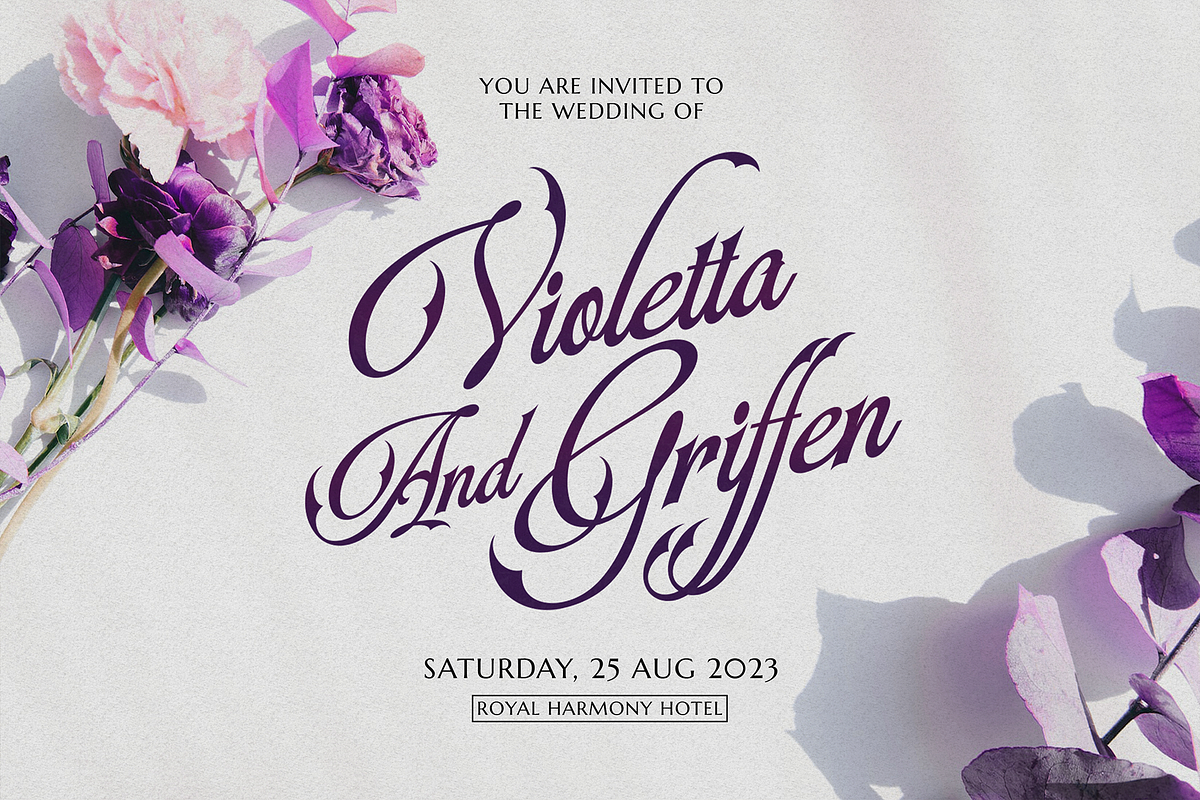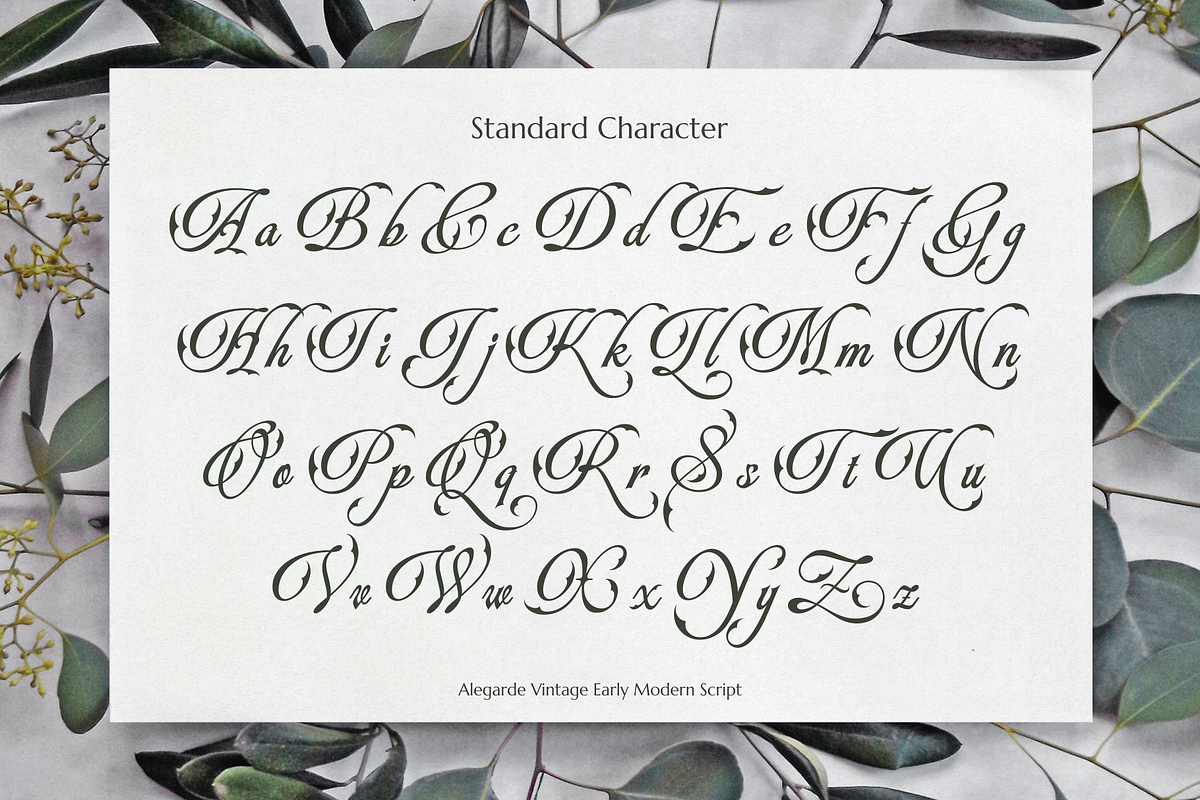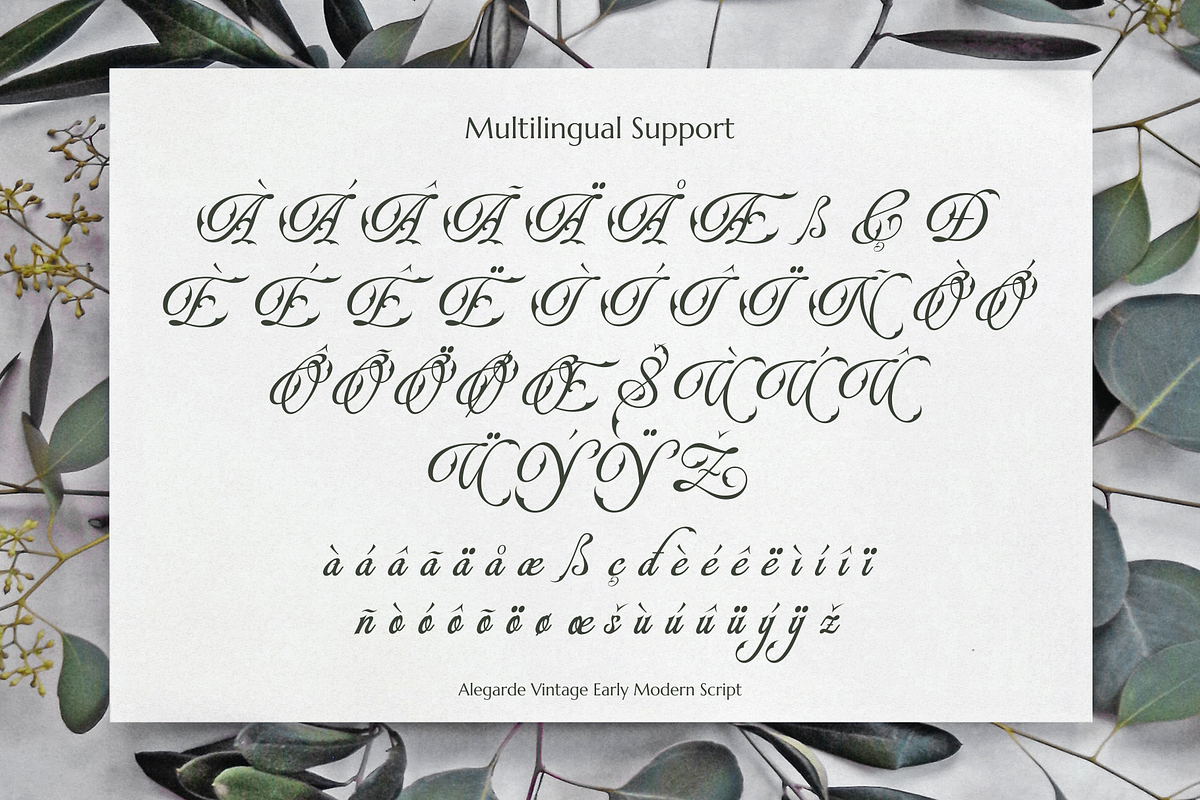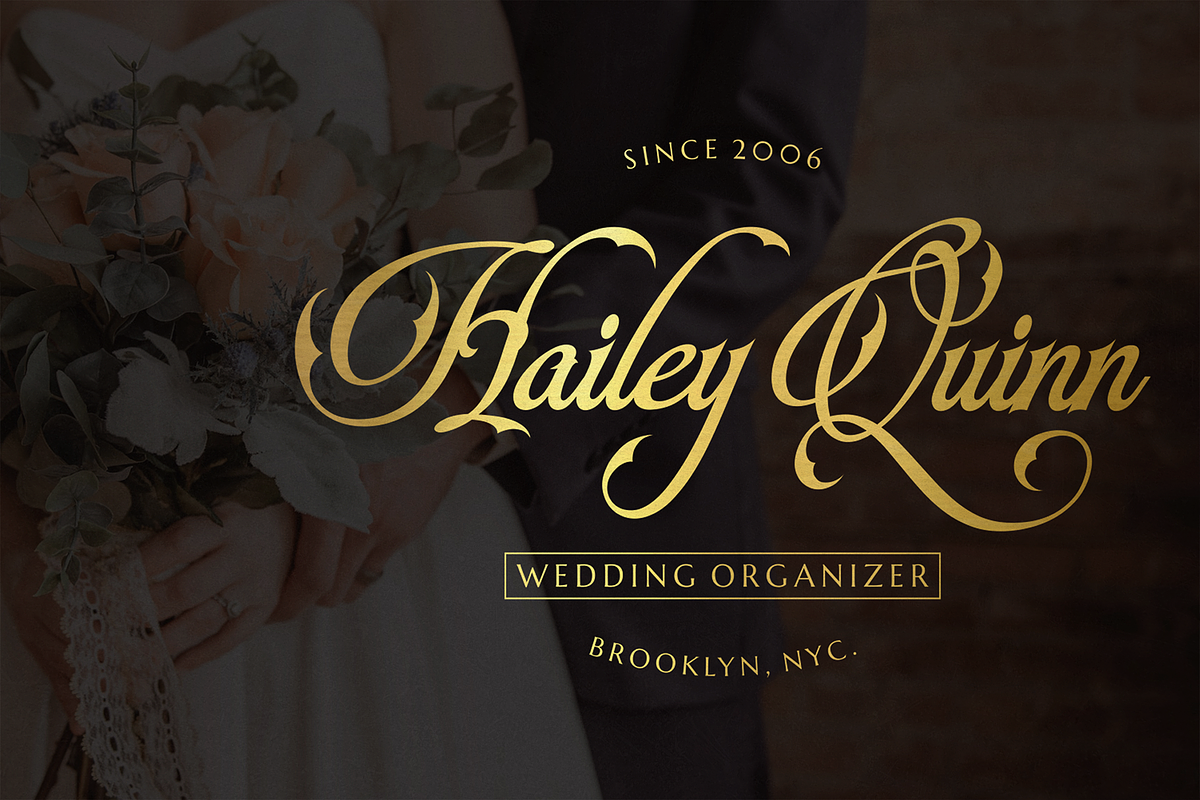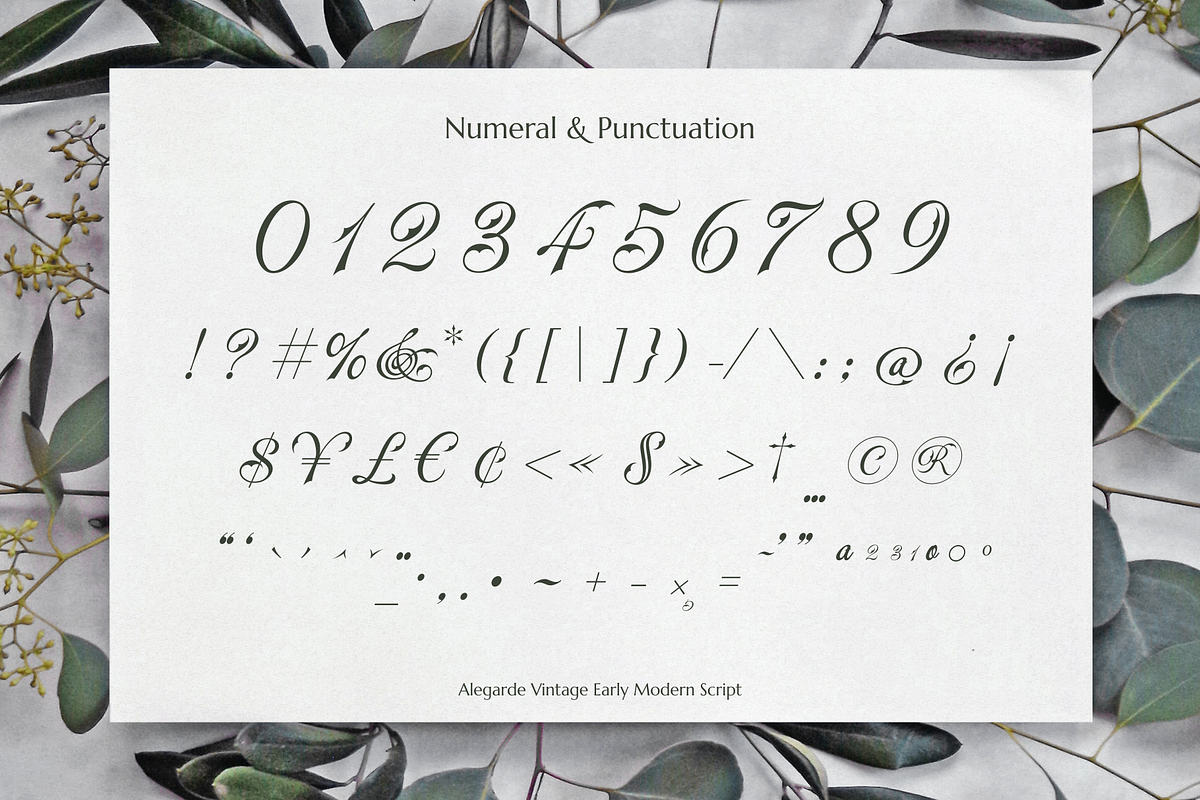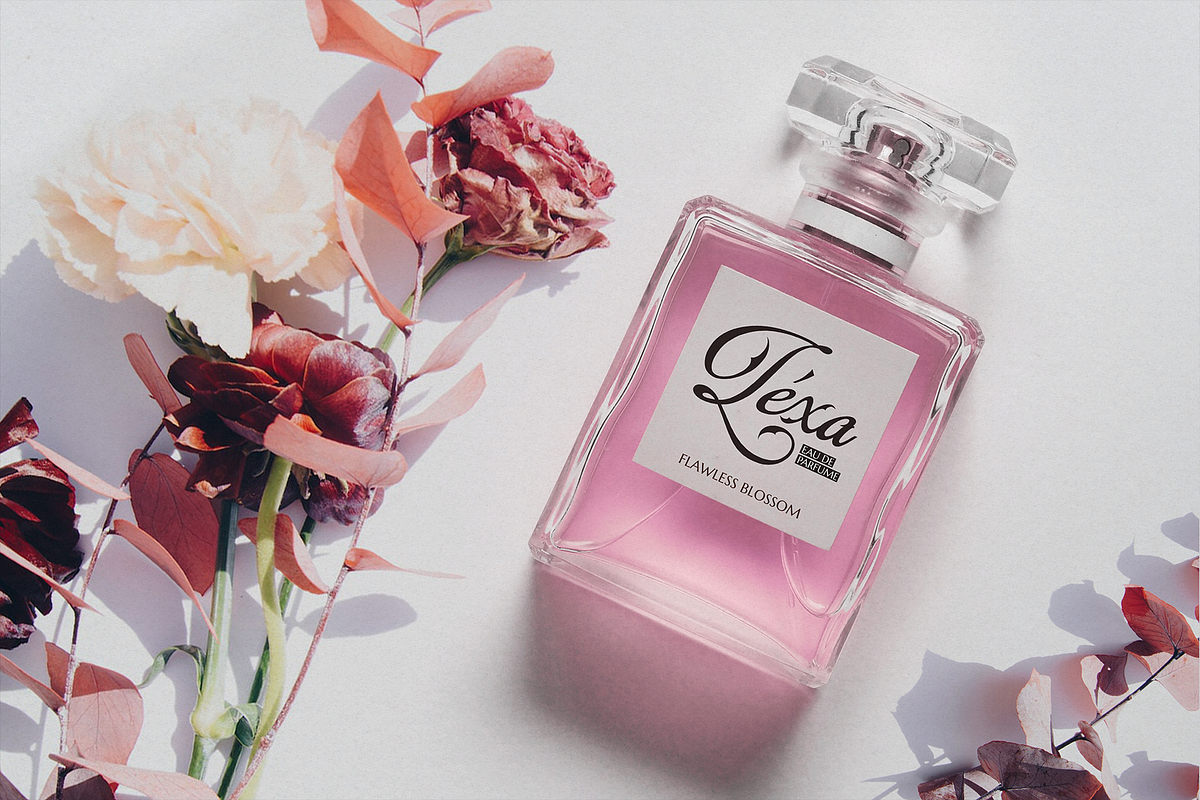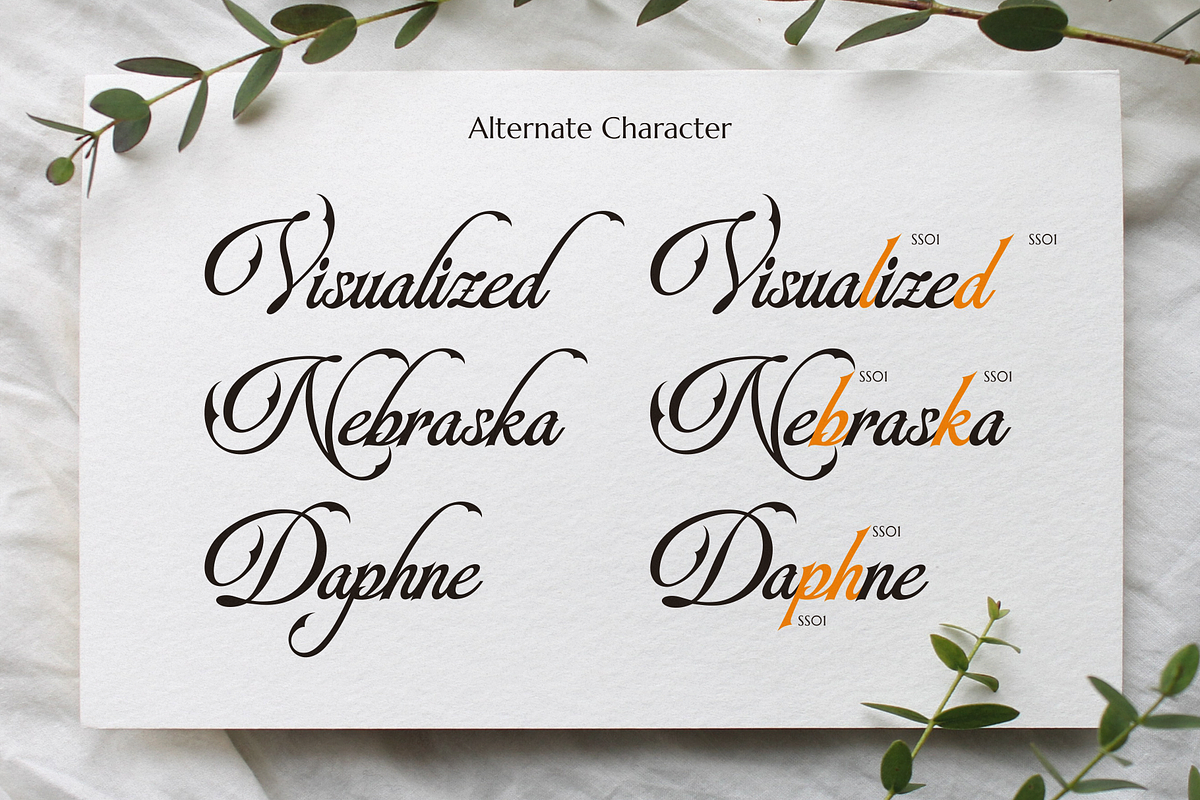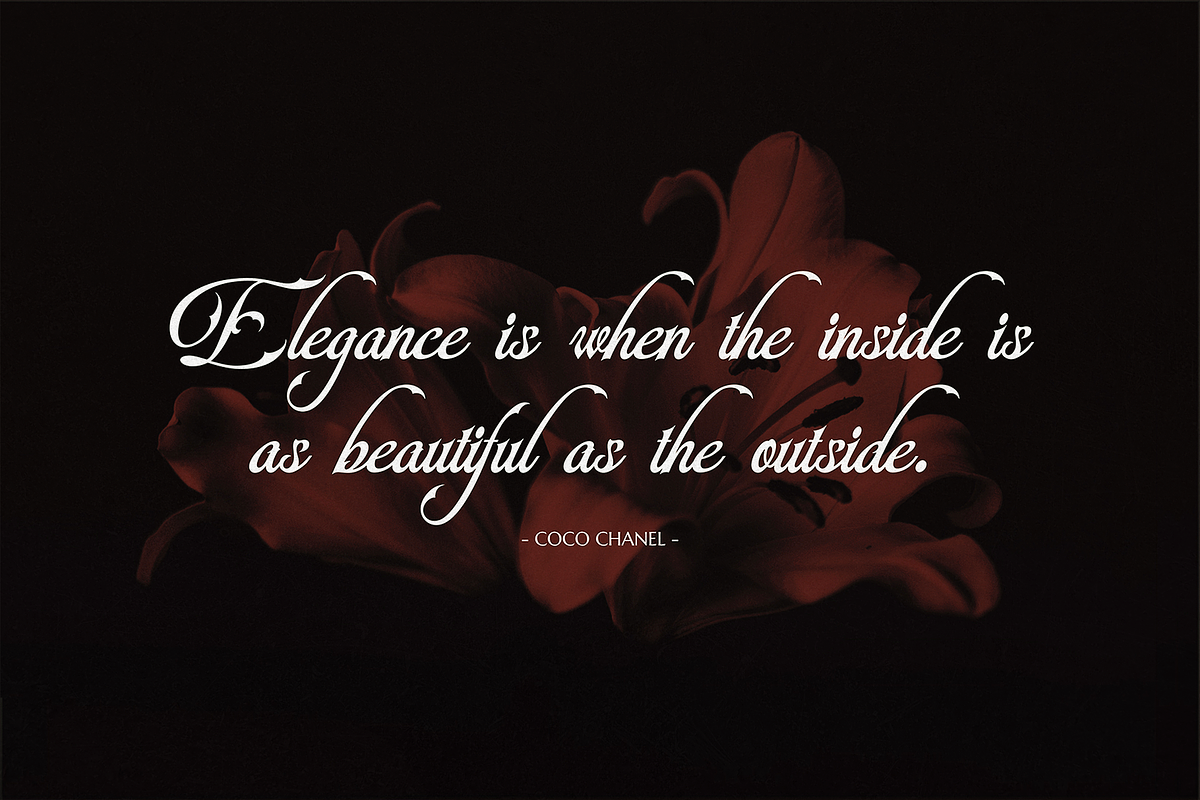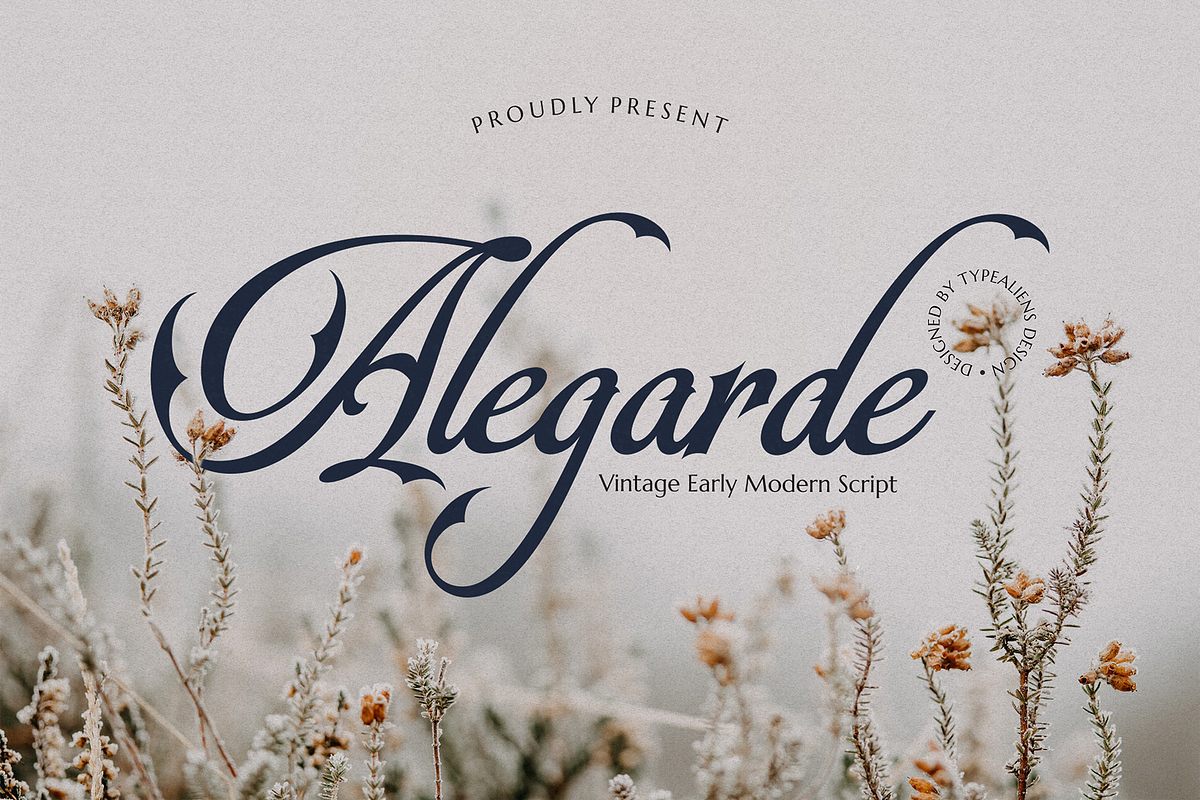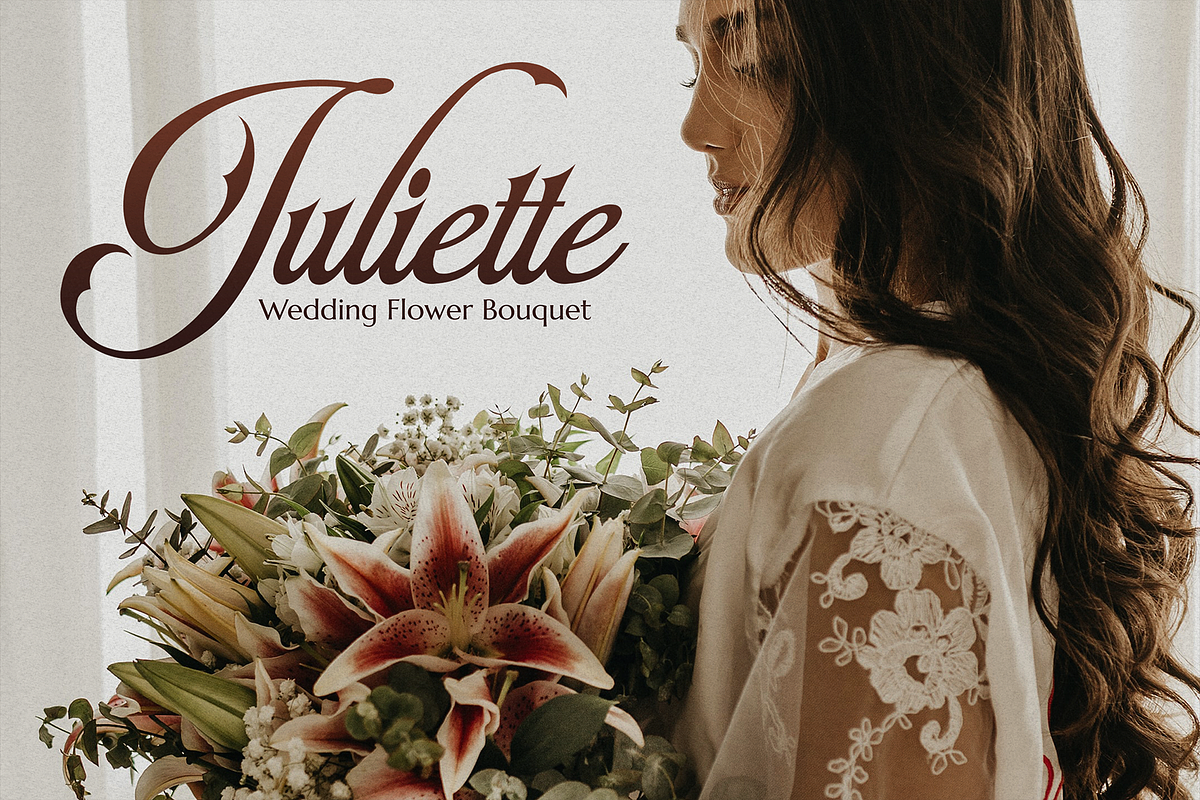
Alegarde
ALEGARDE
Alegarde is a classic script font inspired by old copper plate fonts with a little added spire at the ends of the strokes to make it a bit more gothic. Apart from being classic, this font is also elegant, so it does not rule out simple and elegant modern designs, and it will also be very beautiful for writing letters or as a wedding font such as an invitation or the name of the bride and groom.